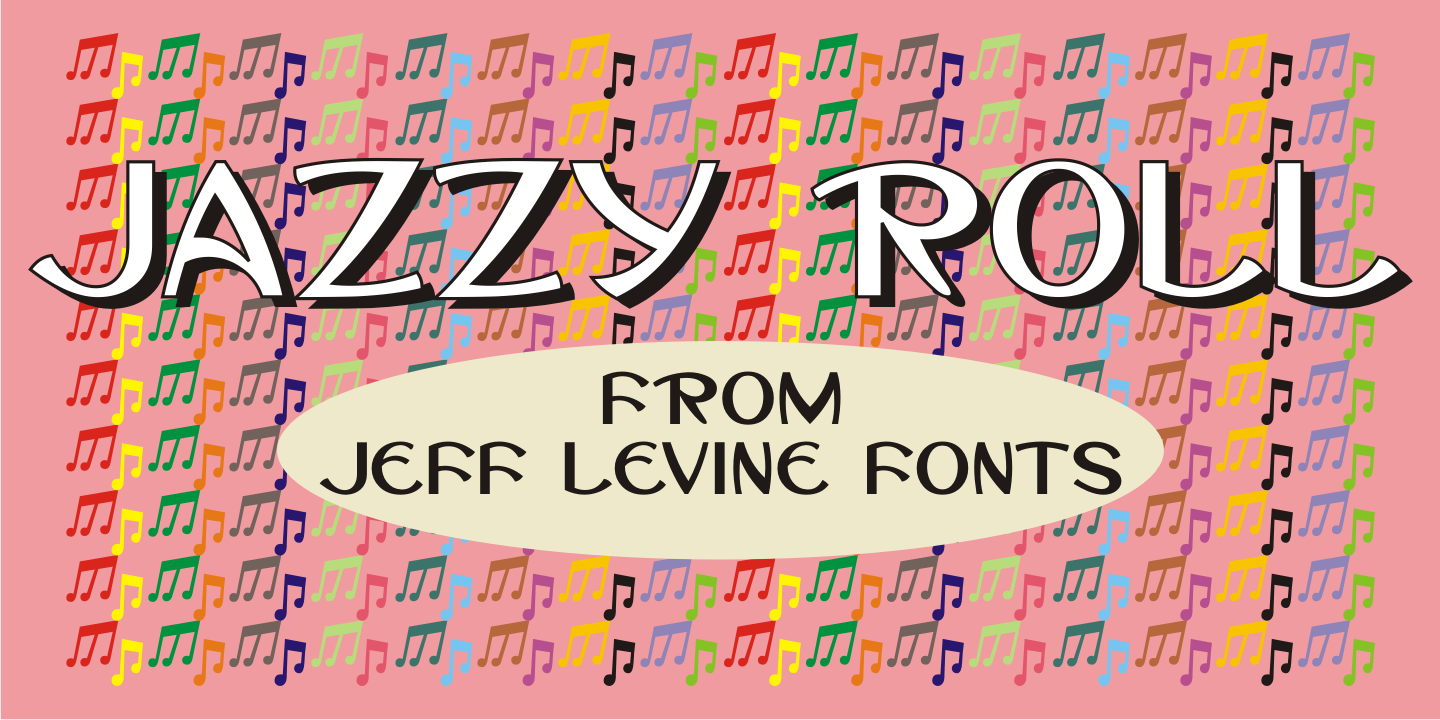
Jazzy Roll JNL Font Free Download is a retro-inspired display typeface that captures the rhythm and flair of mid-20th century design. Please note that you must purchase this font for commercial use. It is available for free download for personal and testing purposes only.
You can use Jazzy Roll JNL Font in music event posters, diner-style menus, vintage packaging, retro branding, swing dance flyers, old-school movie titles, or anything that craves a blast from the past. This font swings with personality and nostalgic charm.
What makes Jazzy Roll JNL so exciting is its upbeat attitude — every letter dances like a saxophone solo on a neon-lit stage. The quirky curves and dynamic spacing bring movement and rhythm to any design, evoking the energy of jukeboxes, classic cars, and malt shops.
The Jazzy Roll JNL Font family includes fun variations like Jazzy Roll JNL Regular, Jazzy Roll JNL Bold, and Jazzy Roll JNL Oblique, giving you options to match the exact vibe you need — whether smooth and subtle or bold and booming.